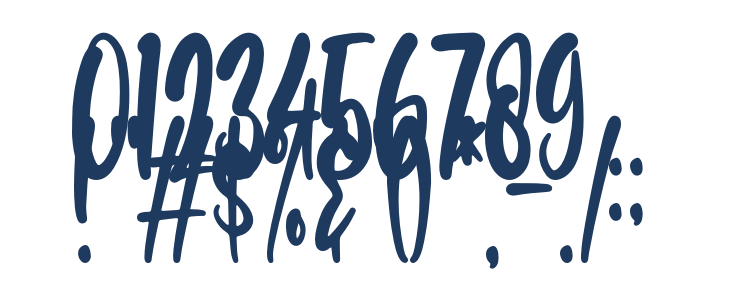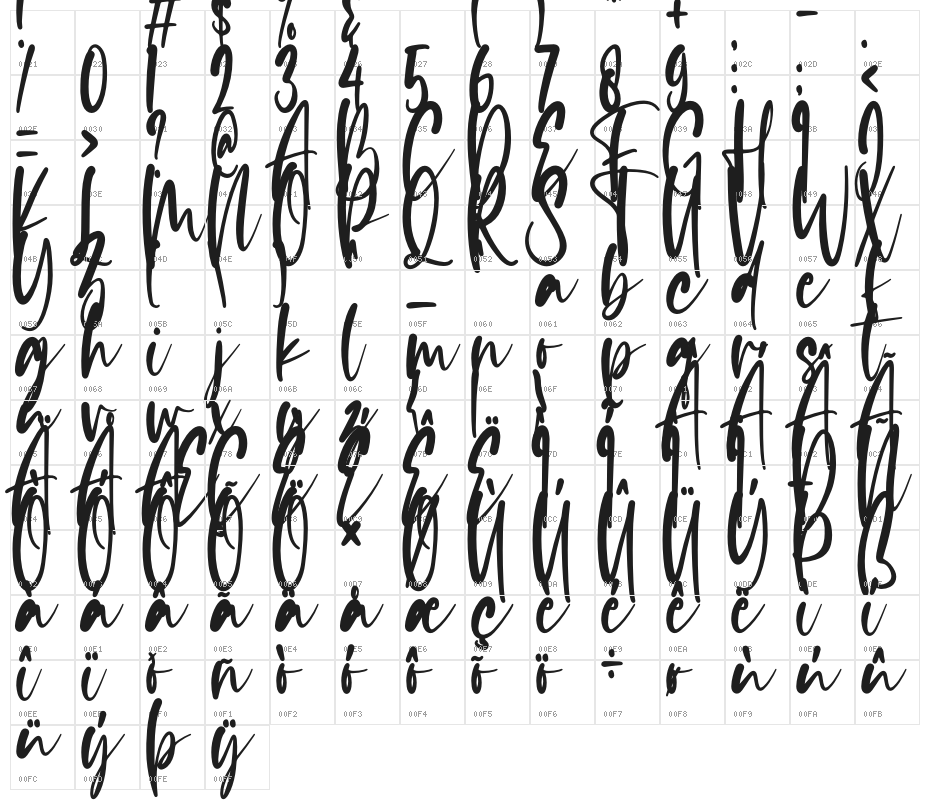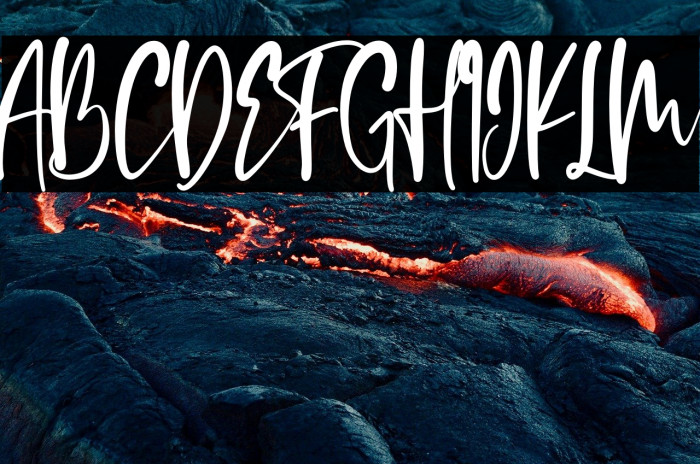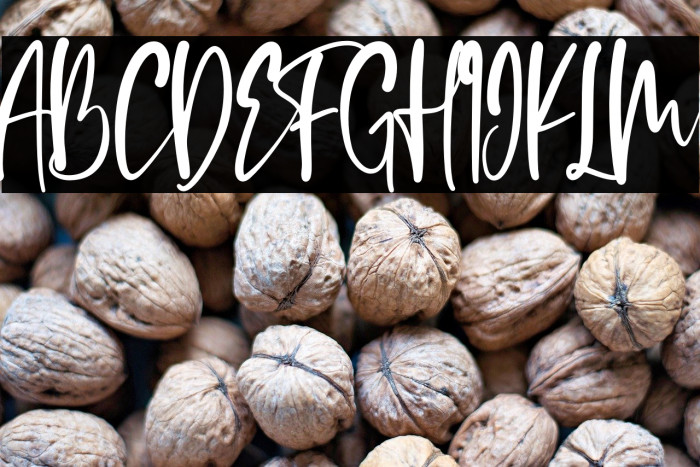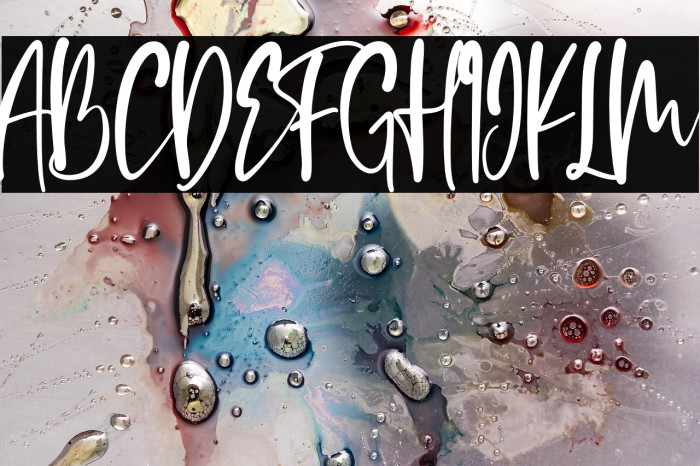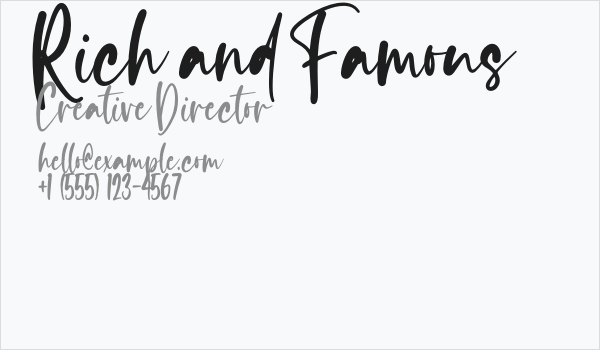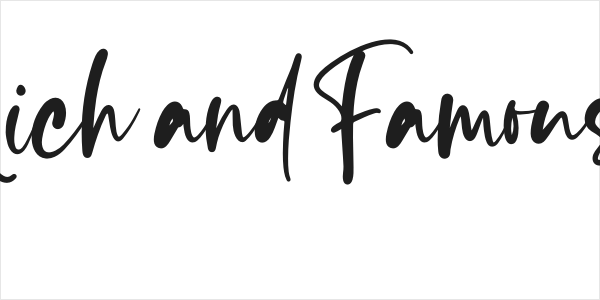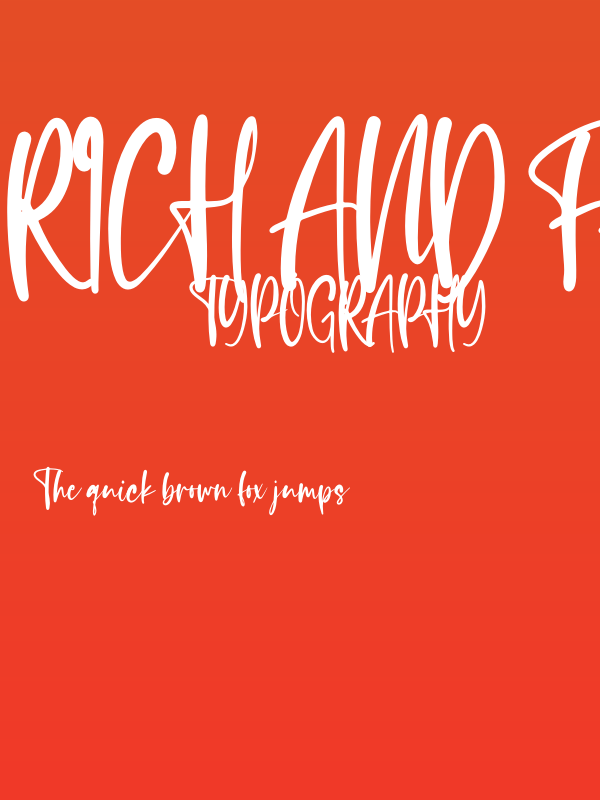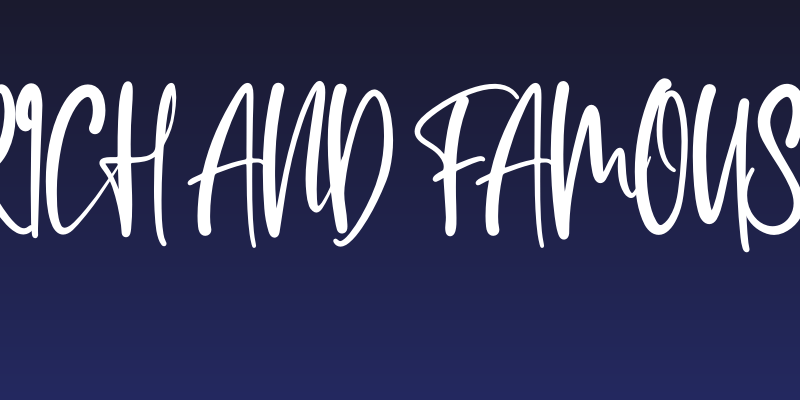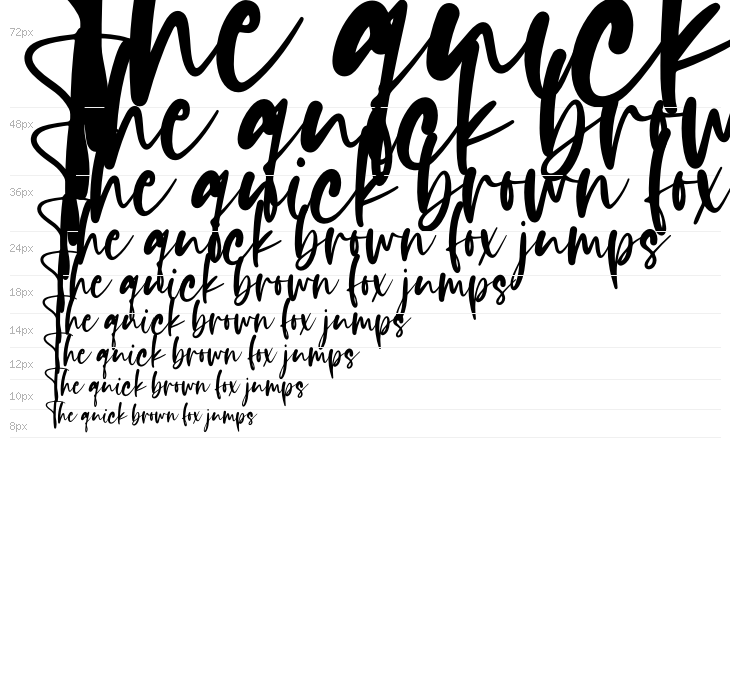
Rich and Famous Font
Rich and Famous Description
This font features a bold, expressive script style with a handwritten appearance. The letters are fluid and dynamic, with a sense of movement that adds a lively and energetic feel. The uppercase and lowercase characters maintain a consistent style, with elongated strokes and a slight slant that enhances the casual yet sophisticated look. The numbers and special characters are equally stylized, ensuring a cohesive appearance across all elements. The overall design is modern and artistic, making it suitable for creative and eye-catching projects.
| Overall Style | Modern, Artistic |
| Proposed Projects | Ideal for branding, invitations, posters, and social media graphics where a personal and artistic touch is desired. |